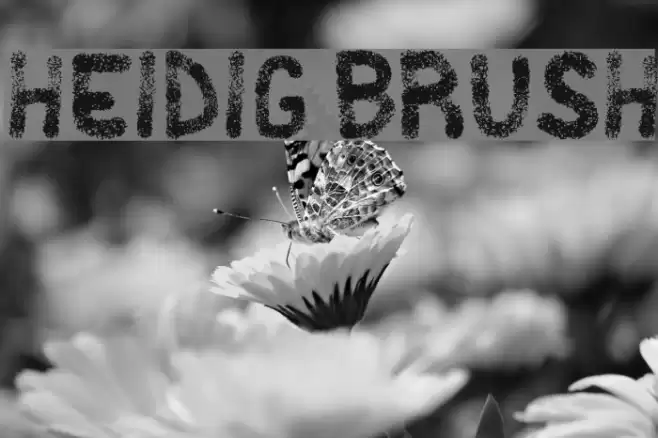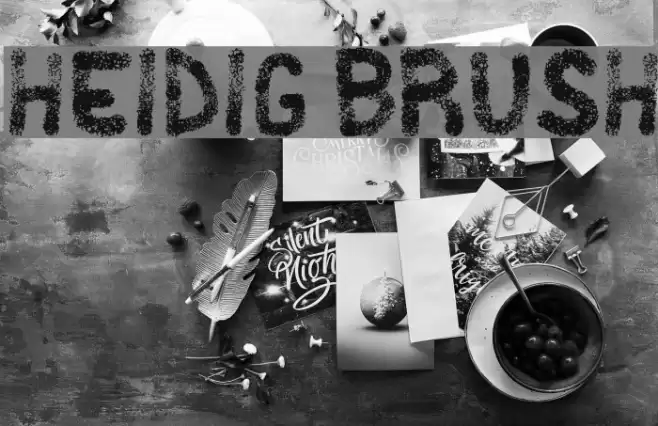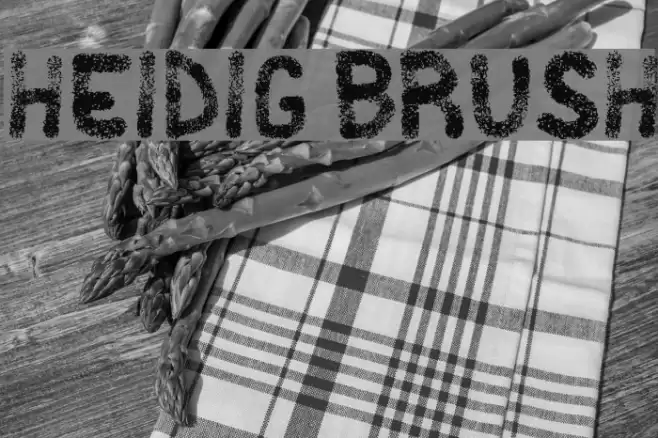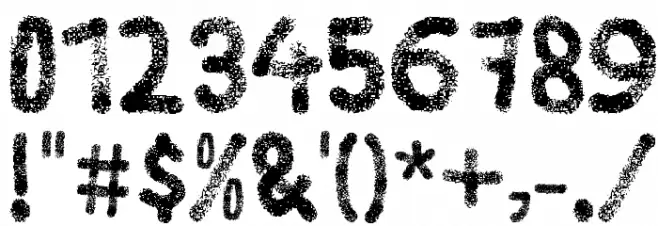
Heidig Brush Font
Heidig Brush Description
This font features a bold, textured brush style that gives it a dynamic and energetic appearance. The characters are crafted with a rough, hand-painted effect, creating a sense of movement and spontaneity. The uppercase and lowercase letters maintain a consistent style, with a slightly irregular edge that enhances its artistic flair. Numbers and special characters are equally expressive, making this font versatile for creative projects. Its unique texture and bold presence make it ideal for designs that require a strong visual impact.
A bold, textured brush font with a dynamic and artistic style from Uncategorized fonts.
- Proposed Projects: Ideal for posters, album covers, branding, and any project that requires a bold, artistic touch.